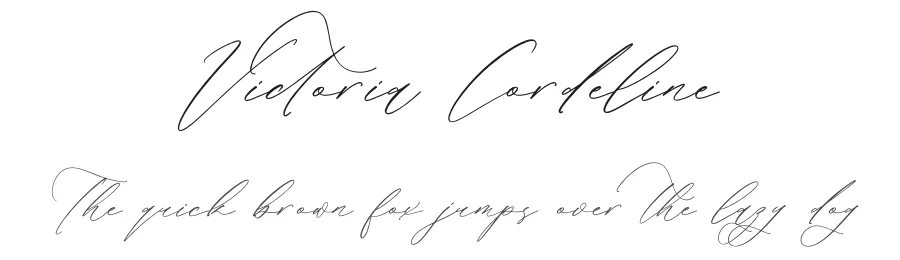
About Brittanyhustle Font
| Designer | Perspectype Studio |
Brittanyhustle supports 222 languages.
Brittanyhustle Font is a script font that shines as a display or heading face. Pair it with a clean sans-serif or serif font for body text β the contrast creates a clear hierarchy while the two styles stay balanced and easy to read.